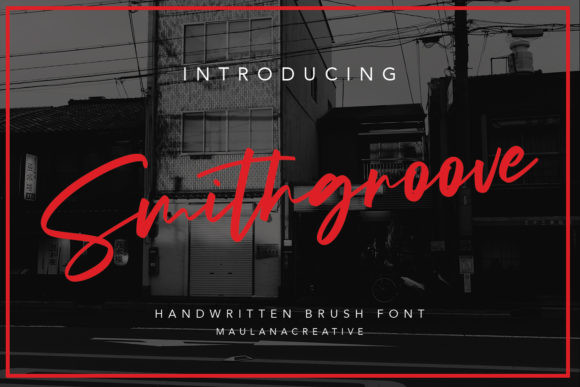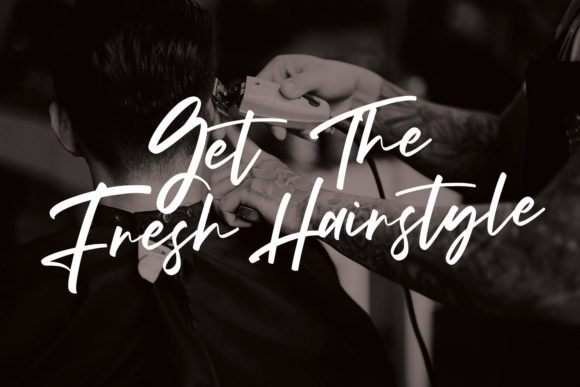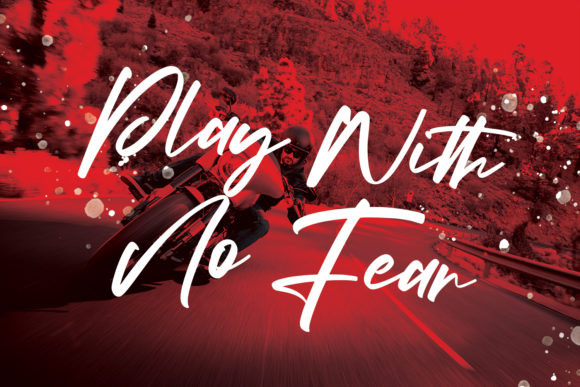
Smithgroove Font
Smithgroove is an outstanding handwritten font. Relaxed and timeless, this font is the perfect choice for a variety of projects, both formal and informal. Fall in love with its incredibly versatile style and use it to create spectacular designs!